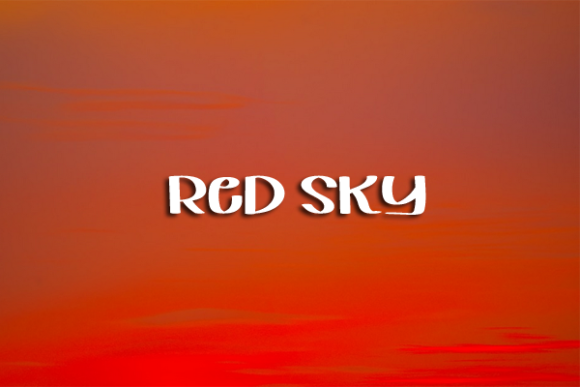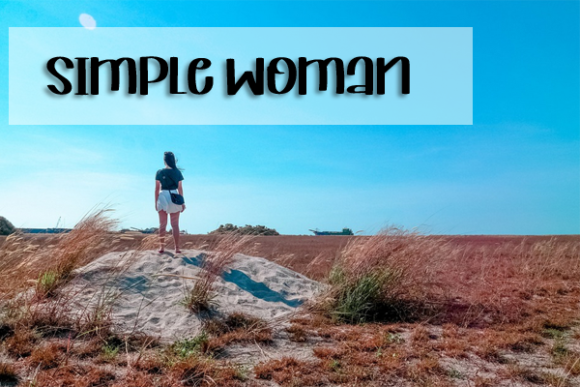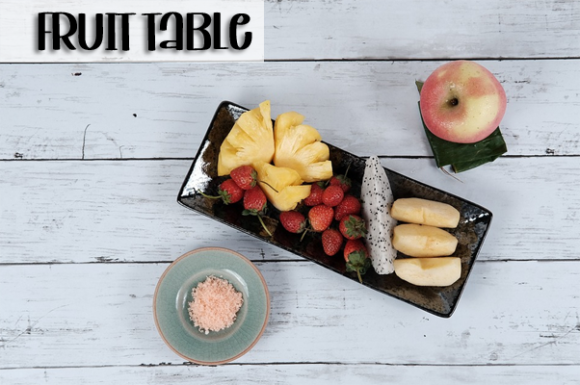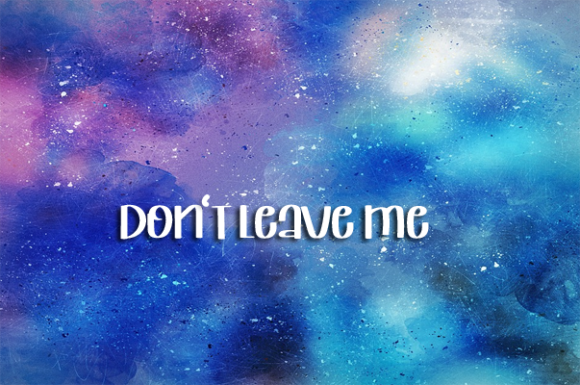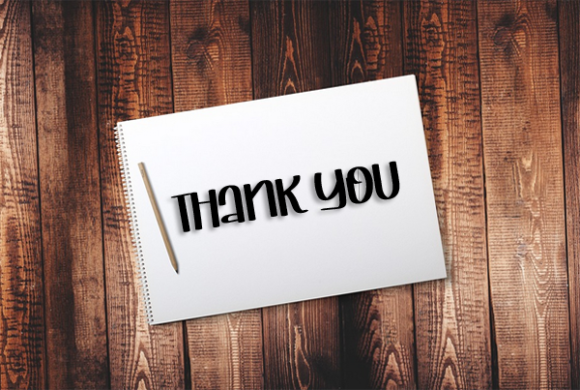
Abadi Font
About Abadi Font
Abadi is a chic and trendy script font. Simple but with a strong visual effect, this font will instantly make your creation more appealing than any others.